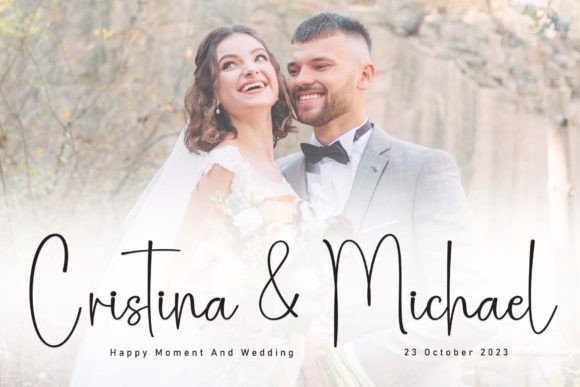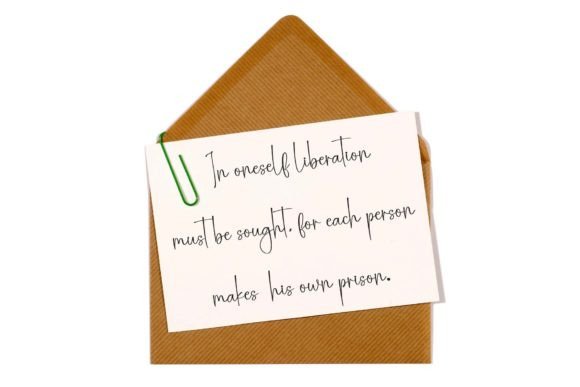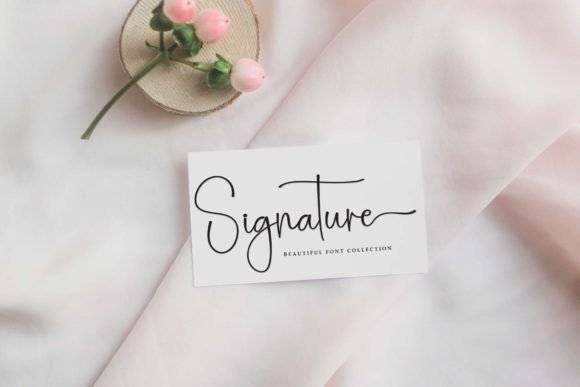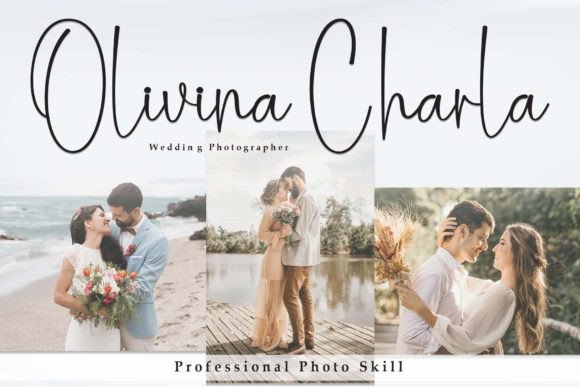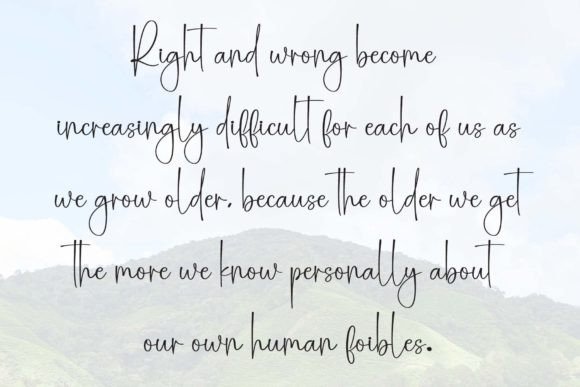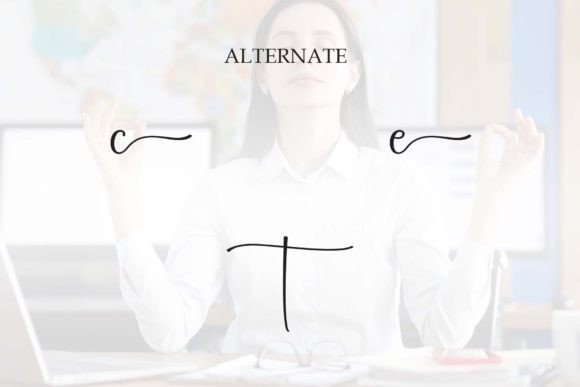
The Magic of Handwritten Fonts: Unleashing Your Creativity
Remember the moment when you stumbled upon the perfect font to elevate your design project? For many designers, that ‘aha’ moment is what sets their creative juices flowing. It’s the spark that ignites a new idea, a fresh perspective, or a bold statement. For me, that moment came when I discovered the Breathine Font – a sweet and friendly handwritten font that has been a game-changer in my design journey.
Designed to bring a touch of natural charm to your designs, the Breathine Font is the perfect companion for any creative project. Its unique style makes it incredibly versatile, allowing you to push the boundaries of your imagination and create something truly special. Whether you’re working on a branding project, a wedding invitation, or a social media graphic, the Breathine Font is sure to bring a smile to your face and a touch of warmth to your design.
Breathine Font Key Features
- Unique Characteristics: Breathine Font features a unique, hand-drawn design with subtle texture and imperfections, giving it a distinctive, organic feel that sets it apart from other fonts.
- Character Set: The font includes a comprehensive character set, covering Latin, Cyrillic, and Greek alphabets, as well as a range of punctuation and symbol glyphs.
Designer Review: Breathine Font
Overall, I was impressed with the Breathine Font, but it had its share of quirks. Here’s my honest review.
- Unique and modern design: The Breathine Font has a unique blend of modern and elegant elements that make it perfect for contemporary designs.
- Good legibility: The font is easy to read, even at smaller font sizes, making it suitable for body text.
- High-resolution support: The font looks great at high resolutions, which is a must-have for modern designs.
- Limited character set: The font lacks support for some special characters, which can be a problem for certain designs.
- No italic or bold styles: The font only comes in regular style, which can limit its versatility.
- Not ideal for headings: While the font is great for body text, it may not be the best choice for headings due to its simplicity.
Overall, I would give the Breathine Font 4 out of 5 stars. While it has its limitations, it’s a great choice for modern designs that require a clean and elegant look. With some additional features, it could be a top contender in the font market.
Tips for Getting the Most Out of Breathine Font
Use Breathine Font in combination with other fonts to create a unique and eye-catching style.
Pay attention to the font’s spacing and kerning to ensure a professional-looking result.
Breathine Font is ideal for creative projects, such as:
1. Social media graphics and advertisements.
2. Branding and logo design.
3. Digital publications and e-books.
4. Infographics and data visualizations.
Alternatives to Breathine Font for Designers
Great Vibes Font is a modern calligraphy font that is perfect for creating a sophisticated and elegant look. It is ideal for use in wedding invitations, branding, and other designs that require a touch of luxury.
Compared to Breathine Font, Great Vibes Font has a more refined and polished look, making it suitable for high-end designs. It also has a wider range of ligatures and swashes, allowing for more creative freedom.
Is the Breathine Font available in bold and italic styles?
Yes, the Breathine Font family includes bold and italic styles, which can be used to add emphasis and variety to your designs. The bold style is ideal for headings and titles, while the italic style is suitable for body text and quotes. You can access these styles by selecting the corresponding font weights in your design software or by using font ligatures.